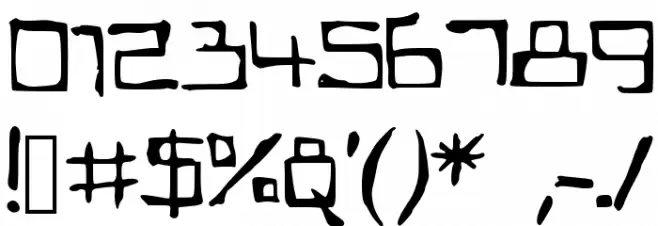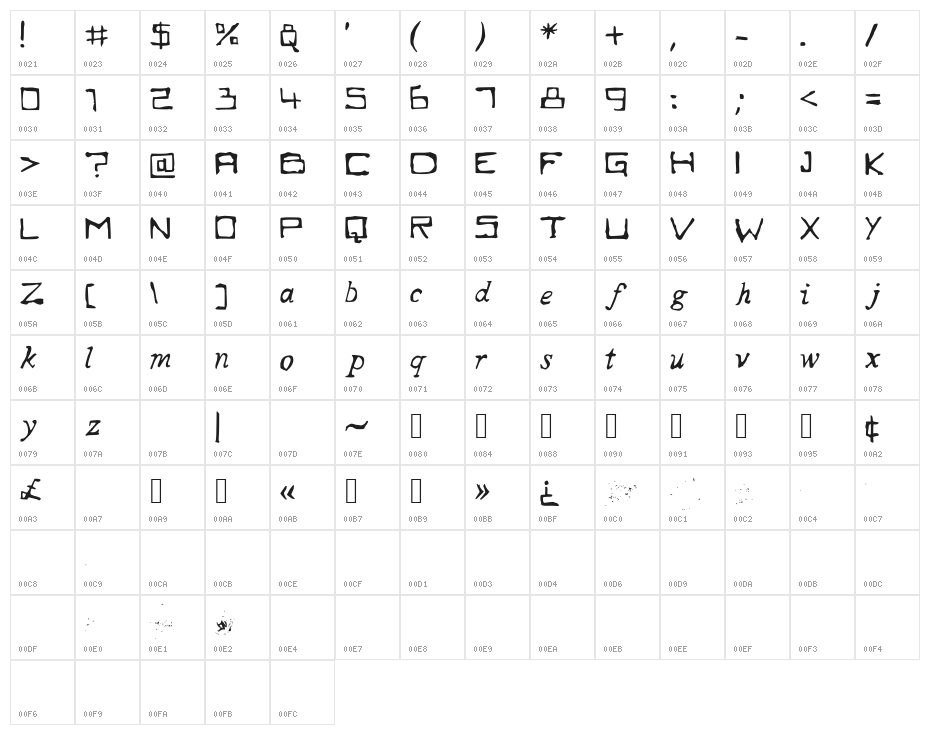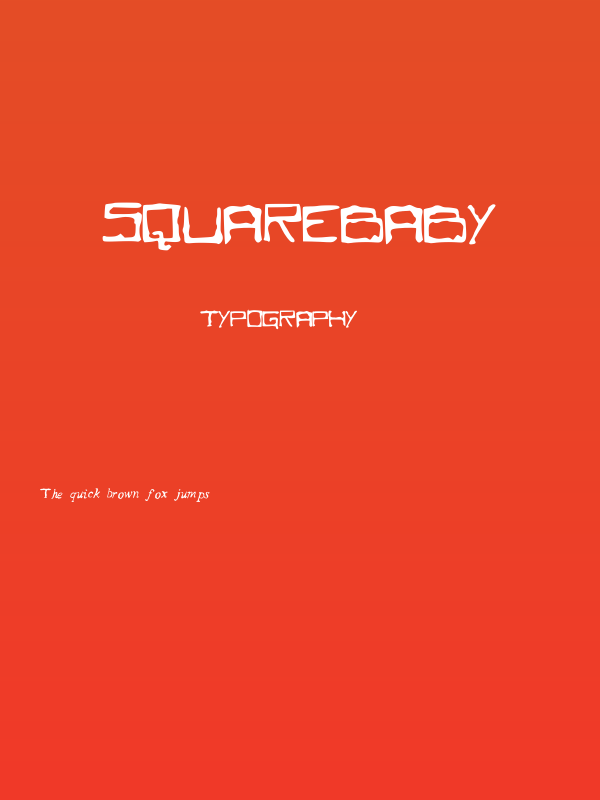
SQUAREBABY Font
SQUAREBABY Description
This font features a unique blend of geometric and organic elements, creating a distinctive and eye-catching appearance. The uppercase letters are characterized by their bold, square-like shapes with rounded edges, giving them a modern and structured look. In contrast, the lowercase letters exhibit a more fluid and handwritten style, adding a touch of elegance and personality. The numerals maintain the bold, structured design of the uppercase letters, ensuring consistency across the font. Special characters are creatively designed, maintaining the overall aesthetic while providing versatility. The font's combination of boldness and fluidity makes it suitable for a variety of design projects.